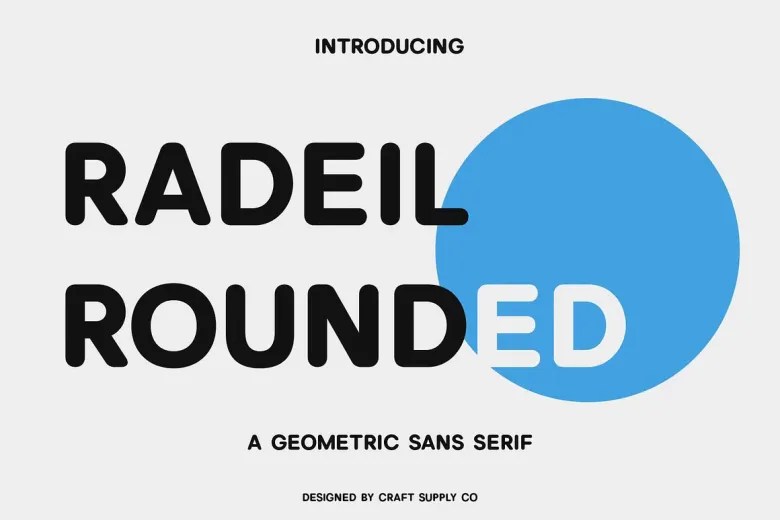
Radeil Rounded Font
Radeil Rounded offers a gentle and economical font solution with its low-contrast, rounded sans serif design. This font’s soft curves and friendly aesthetic invite users to engage with the content naturally, making it ideal for a wide range of applications. Designed with versatility in mind, Radeil Rounded seamlessly adapts to branding, user experience design, and editorial work, providing warmth and accessibility across various platforms.
Low Contrast, High Impact: Radeil Rounded combines clarity with elegance. Its low-contrast characters ensure legibility and visual appeal in different sizes and screen resolutions, while its soft, rounded shapes create a welcoming and cozy impression.
Friendly Typeface: With its approachable and versatile design, Radeil Rounded stands out as an excellent choice for projects aimed at fostering an inviting atmosphere. Whether used for digital interfaces, print materials, or branding, this font adds a touch of warmth and accessibility to any design.